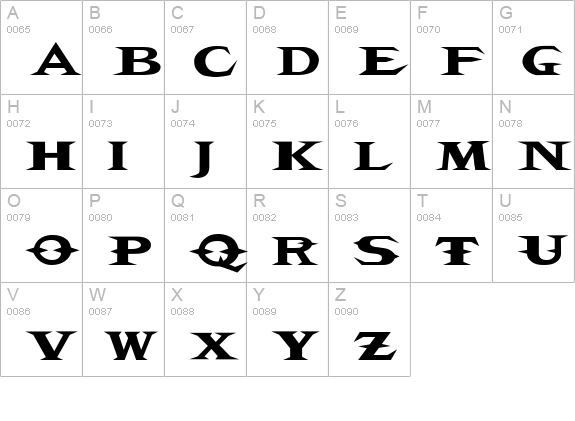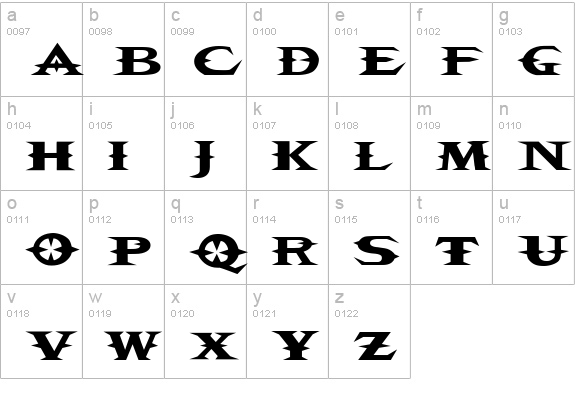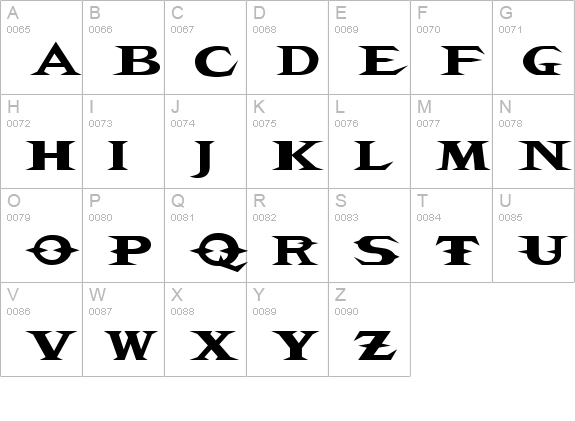
VTCBelialsBlade Regular Font Details
VTCBelialsBlade Regular is the standard, neutral variant in the VTCBelialsBlade typeface family \xE2\x80\x94 well suited to general body text, paragraphs, and standard typographic work.
VTCBelialsBlade Regular font is a stunning display typeface that exudes a sense of power, elegance, and sophistication. Its sharp and angular letterforms are reminiscent of a finely crafted blade, making it a perfect choice for projects that demand attention and make a bold statement. Whether you're designing a striking logo, creating eye-catching headlines, or crafting a captivating poster, VTCBelialsBlade Regular font will elevate your designs to new heights. Its unique and intricate details add a touch of drama and intrigue, making it a standout choice among other fonts. But what sets VTCBelialsBlade Regular font apart from the rest is that it is freely available to download at FontsMarket.com. Yes, you read that right! This exquisite font can be yours without any cost, allowing you to unleash your creativity without any limitations. With its wide range of characters, including uppercase, lowercase, numerals, and punctuation marks, VTCBelialsBlade Regular font provides versatility and flexibility for all your design needs. Its legibility remains intact at various sizes, ensuring that your message is conveyed clearly and effectively. So, why wait? Embrace the power and elegance of VTCBelialsBlade Regular font and take your designs to the next level. Download it for free at FontsMarket.com and unlock a world of possibilities for your creative endeavors.